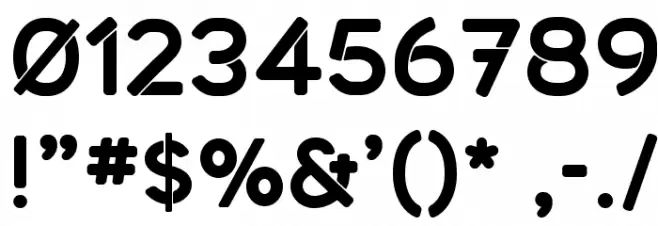
Middlecase Bold-Solid Font
Middlecase Bold-Solid Description
This font features a bold and solid design with a modern and geometric style. The characters are constructed with thick strokes and rounded edges, giving them a strong and impactful appearance. The uppercase and lowercase letters maintain a consistent weight, contributing to a cohesive look. The numbers and special characters are designed to match the boldness of the alphabet, ensuring uniformity across all elements. The font's unique style makes it suitable for projects that require a contemporary and eye-catching typeface.
A bold, geometric font with rounded edges and a modern style from Decorative fonts.
- Proposed Projects: Ideal for branding, posters, headlines, and digital media where a strong visual impact is desired.